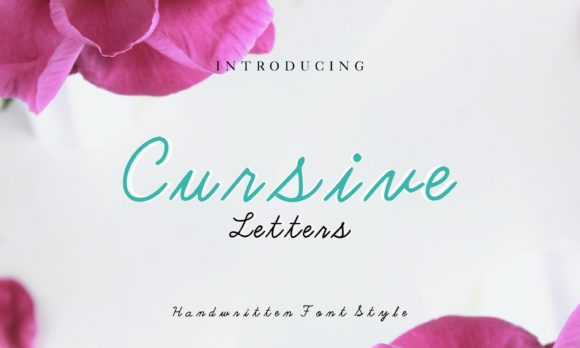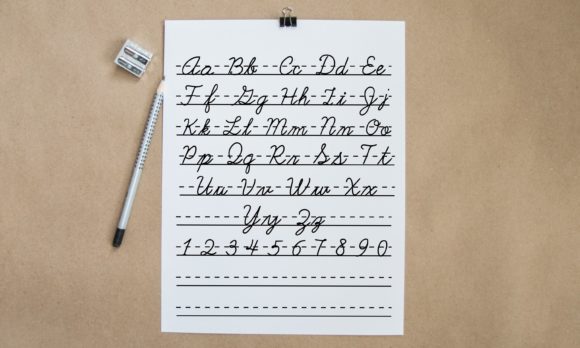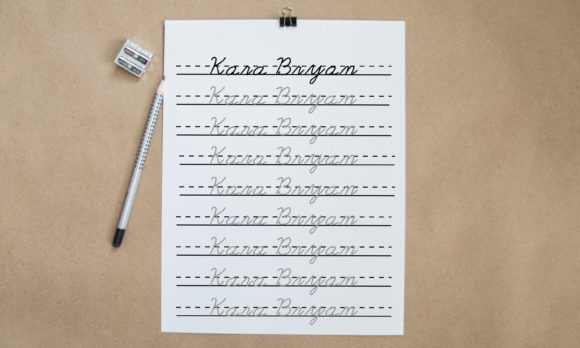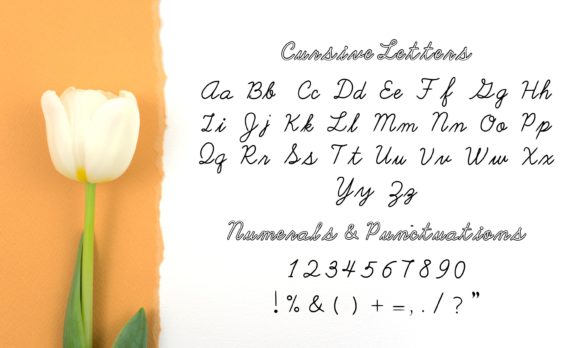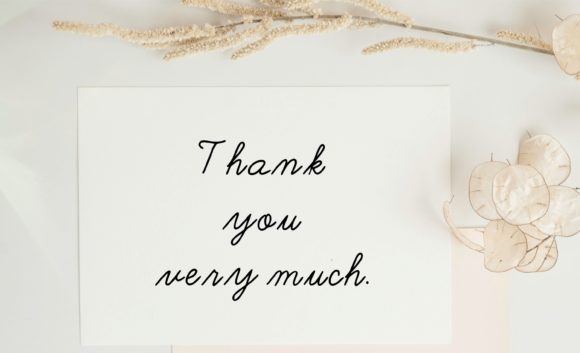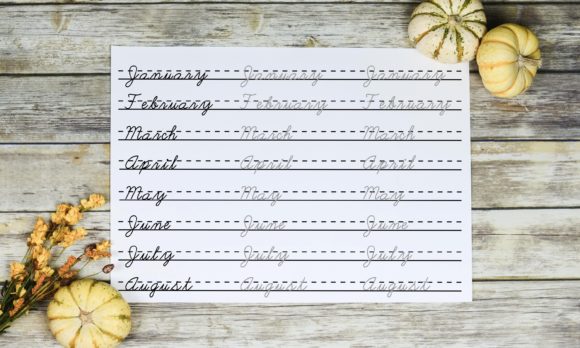
Cursive Letters Font
Cursive Letters is a beautiful handwritten font that adds a touch of elegance and charm to your designs. With its flowing and graceful letterforms, this font is suitable for various purposes and serves as an incredible asset to any font library. Whether your creative project revolves around art, literature, or any other topic, Cursive Letters is a perfect choice.
The beauty of Cursive Letters lies in its handcrafted and organic feel. The fluid strokes and intricate details create a sense of elegance and sophistication. Each letter is meticulously designed, resulting in a font that exudes a timeless beauty that can enhance the visual appeal of your designs.
The versatility of Cursive Letters allows it to shine in a wide range of applications. Whether you’re working on invitations, branding materials, quotes, or any other creative project, this font adds a touch of creativity and personalization. Its handwritten style creates a warm and authentic feel, making your designs stand out and connect with the audience.
Cursive Letters is a font that transcends specific topics or themes. Its beauty and versatility make it suitable for any creative project, regardless of the subject matter. Whether you’re designing for personal or professional purposes, this font adds a touch of elegance and artistic flair that elevates the overall look and feel of your designs.
By incorporating Cursive Letters into your fonts library, you gain a valuable asset that can be used across a wide range of projects. Its beauty and flexibility make it a reliable choice for creative endeavors. Embrace the versatility and elegance of Cursive Letters and witness how it enhances the visual impact of your designs.
In summary, Cursive Letters is a beautiful handwritten font suitable for various purposes. Its elegance and charm make it an incredible asset to any fonts library. With its versatility, this font is perfect for creative projects, regardless of the topic. Embrace the beauty and personal touch of Cursive Letters and let it add a touch of elegance and creativity to your designs, making them truly captivating and impactful.